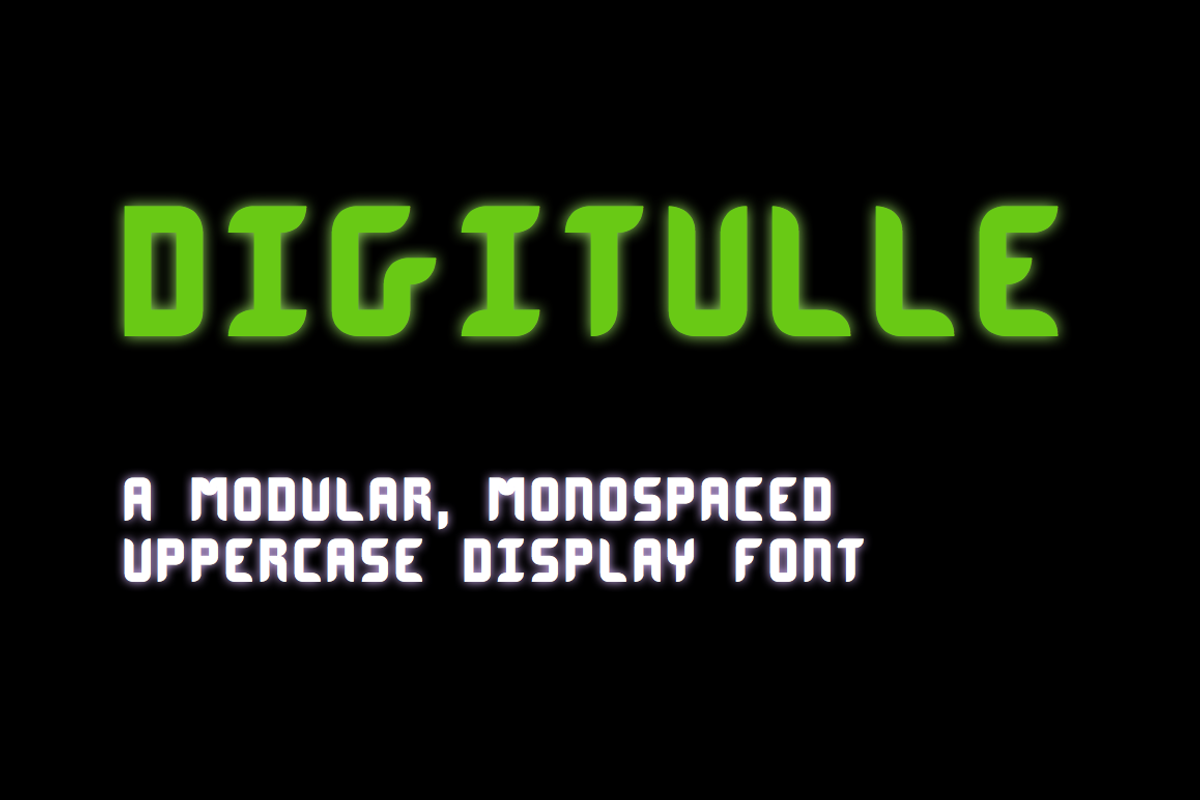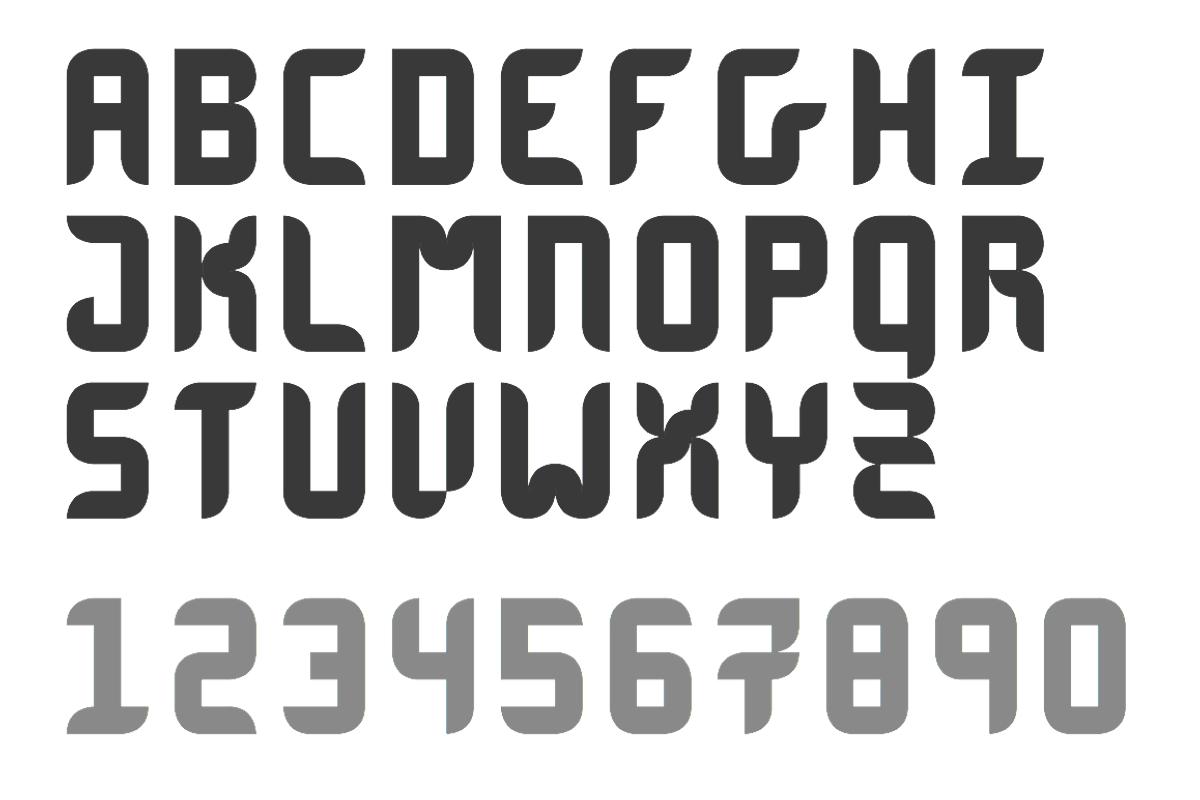
Digitulle Typeface
Digitulle Typeface by krotondo is a font selected for branding, posters, packaging, typography.
- Digitulle is a modular, mostly monospaced (excepting M, W) uppercase display typeface.
Digitulle Typeface by krotondo fits naturally into Branding, posters, packaging, typography.